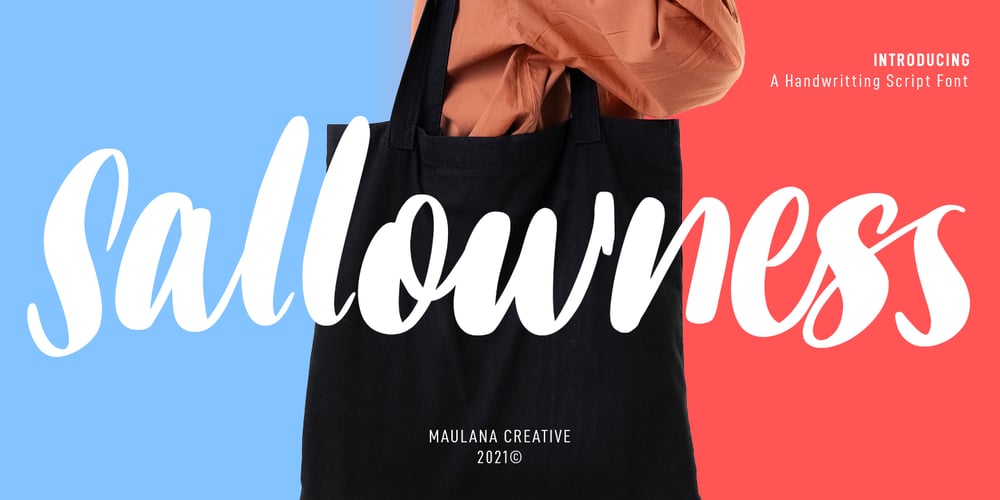
Sallowness Font Family was designed by Gilang Maulana and published by Maulana Creative. Sallowness contains 1 styles and family package options. Sallowness is a modern handwritten script font. With high contrast stroke, fun character with some of ligatures. To give you an extra creative work. Sallowness font support multilingual more than 100+ language. This font is good for logo design, Social media, Movie Titles, Books Titles, a short text even a long text letter and good for your secondary text font with sans or serif. Make a stunning work with Sallowness font.Cheers, MaulanaCreative